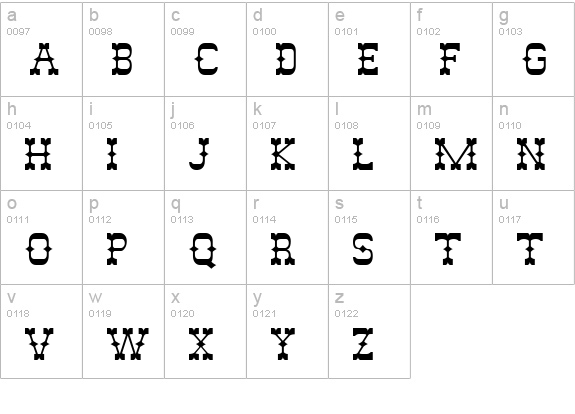
Rodeo Regular is the standard, neutral variant in the Rodeo typeface family \xE2\x80\x94 well suited to general body text, paragraphs, and standard typographic work.
Rodeo Regular font is a stunning display typeface that exudes a sense of boldness and adventure. With its strong, rugged letterforms and western-inspired design, this font is perfect for creating eye-catching headlines, posters, and branding materials. The striking contrast between thick and thin strokes gives Rodeo Regular a dynamic and energetic appearance that is sure to make your designs stand out. Best of all, Rodeo Regular is available for free download at FontsMarket.com. Whether you're working on a project that calls for a touch of the wild west or simply want to add a bold and unique element to your designs, Rodeo Regular is the perfect choice. Download it today and let your creativity run free with this versatile and impactful font.